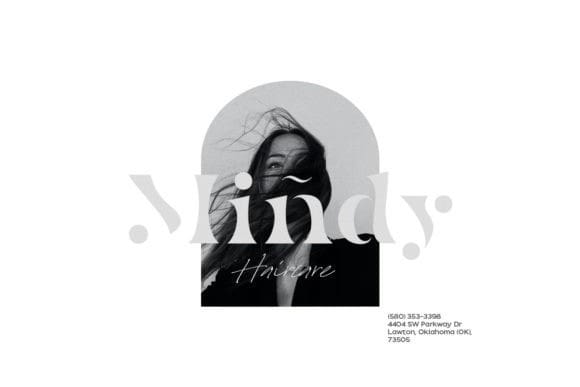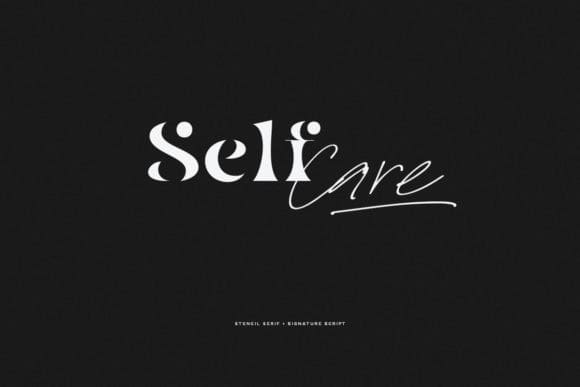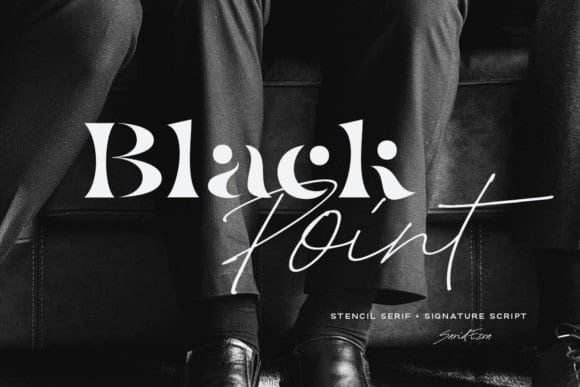
Black Point Font
Black Point Duo consists of two fonts designed to complement each other perfectly. Together or apart, these fonts are ideal for adding a chic and cheery touch to your crafts. This font is PUA encoded which means you can access all glyphs and swashes with ease!